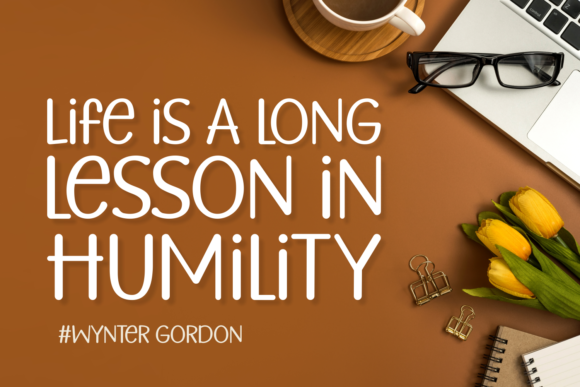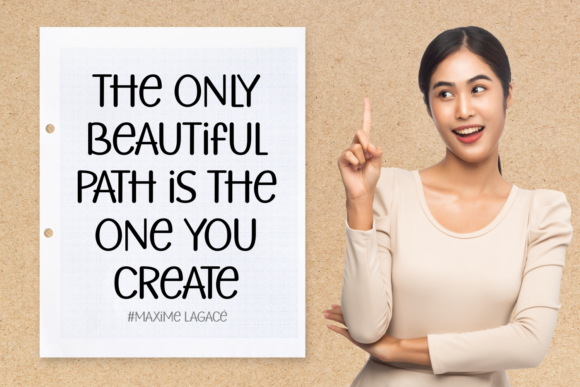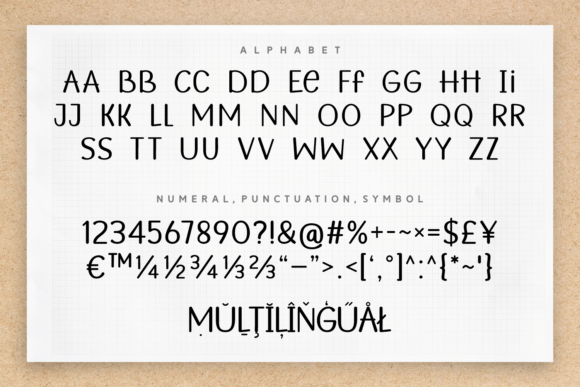
Introduction to Nothing is Impossible Font Font
Fonts play a crucial role in design, and the Nothing is Impossible Font font is a typeface that brings both character and versatility to any project. Whether you’re working on a branding project, a website, or a print design, the Nothing is Impossible Font font offers a unique style that can elevate your work.
Nothing is Impossible is an enchanting handwritten font.
This versatile script font has a wide spectrum of applications ranging from greeting cards to headlines and is guaranteed to add a romantic feel to your next project .
Key Features of Nothing is Impossible Font Font
Why Choose Nothing is Impossible Font Font?
The Nothing is Impossible Font font is more than just a typeface – it’s a design tool that helps you communicate your message with style and clarity. Its unique character set and versatile design make it suitable for a wide range of applications, from elegant invitations to bold headlines.
With its carefully crafted letterforms and balanced proportions, the Nothing is Impossible Font font ensures readability and visual appeal across all mediums.
What makes Nothing is Impossible Font font special?
The Nothing is Impossible Font font stands out with its unique design, exceptional readability, and versatility across various design applications.